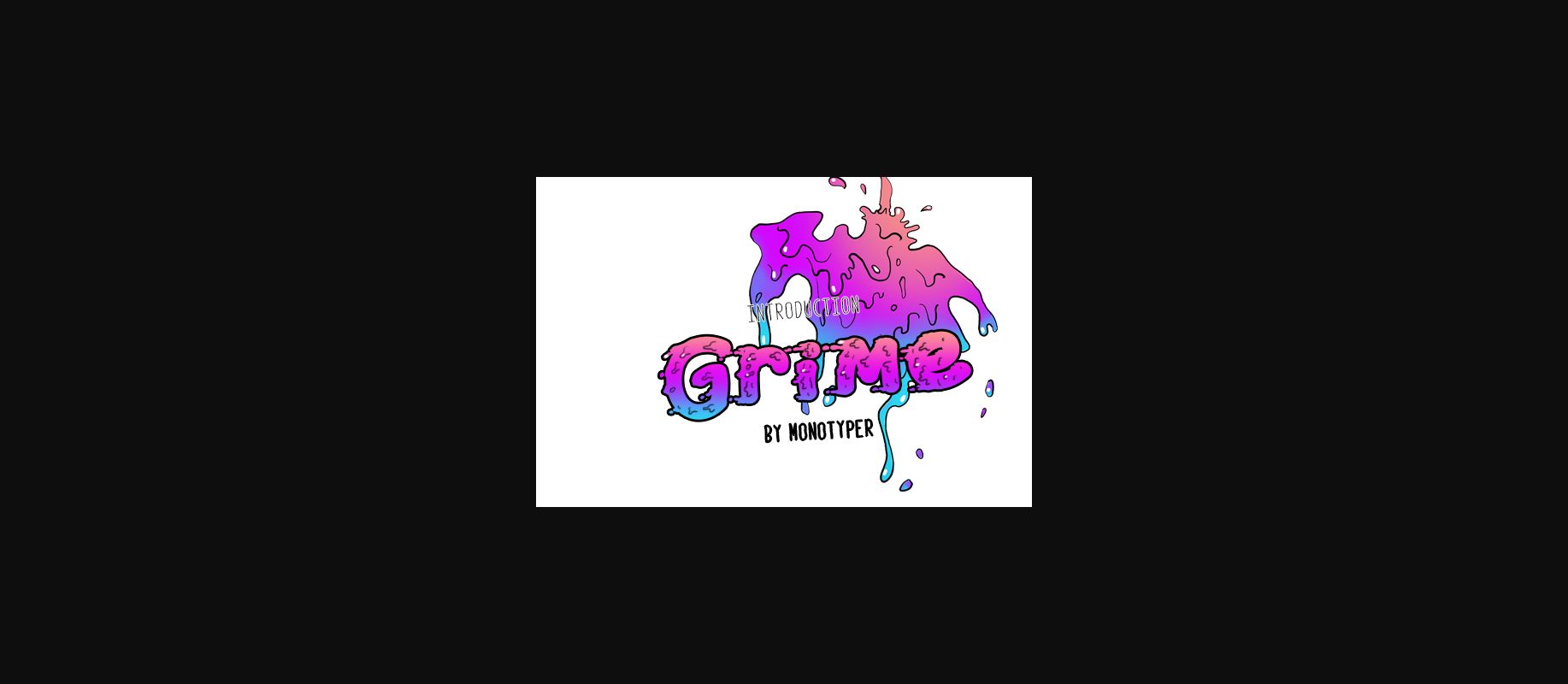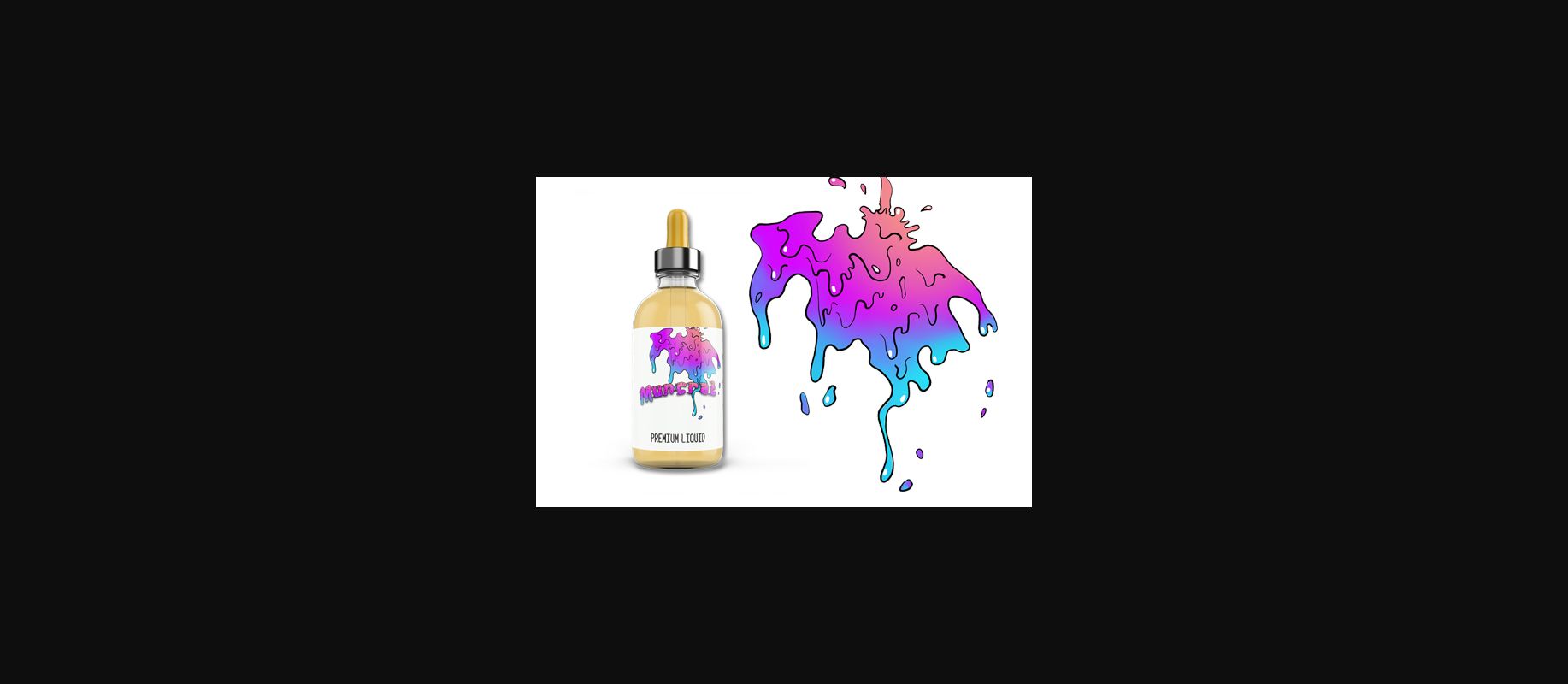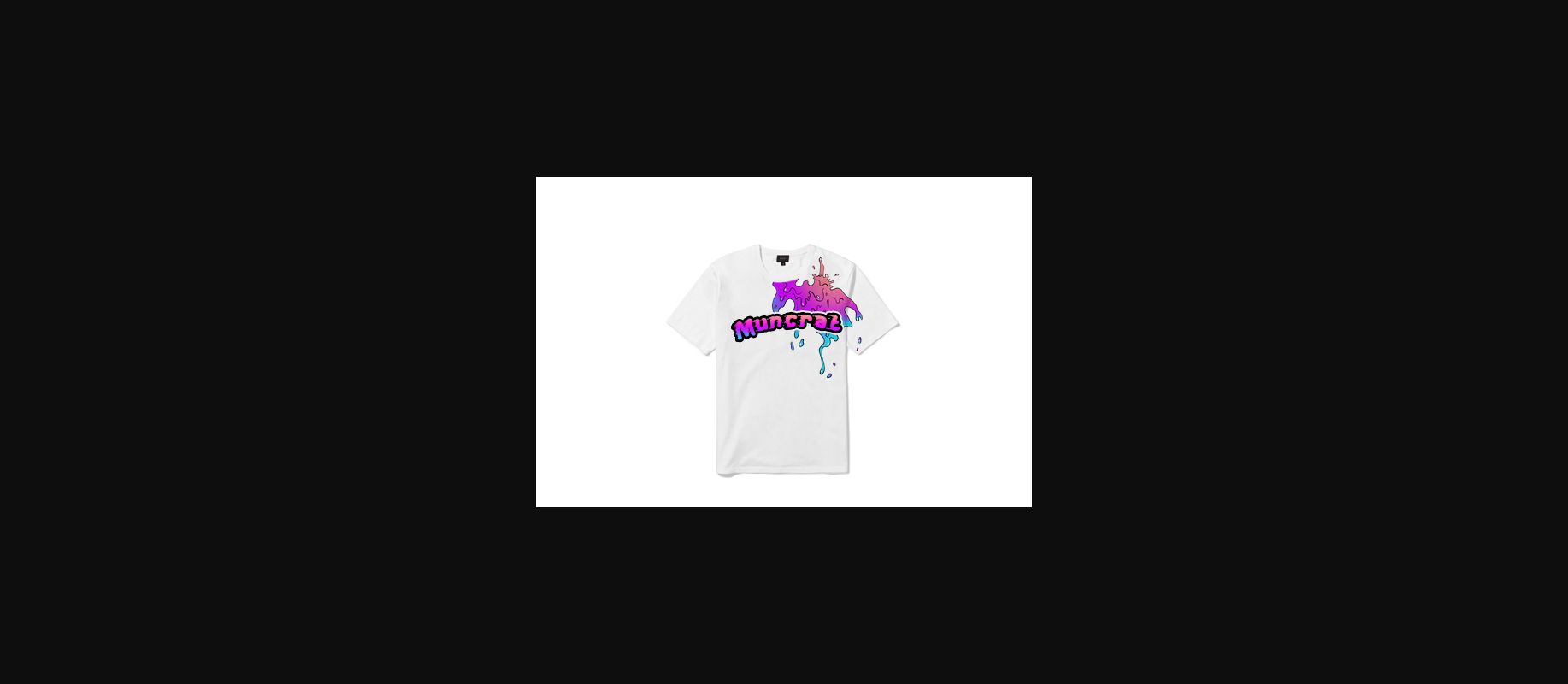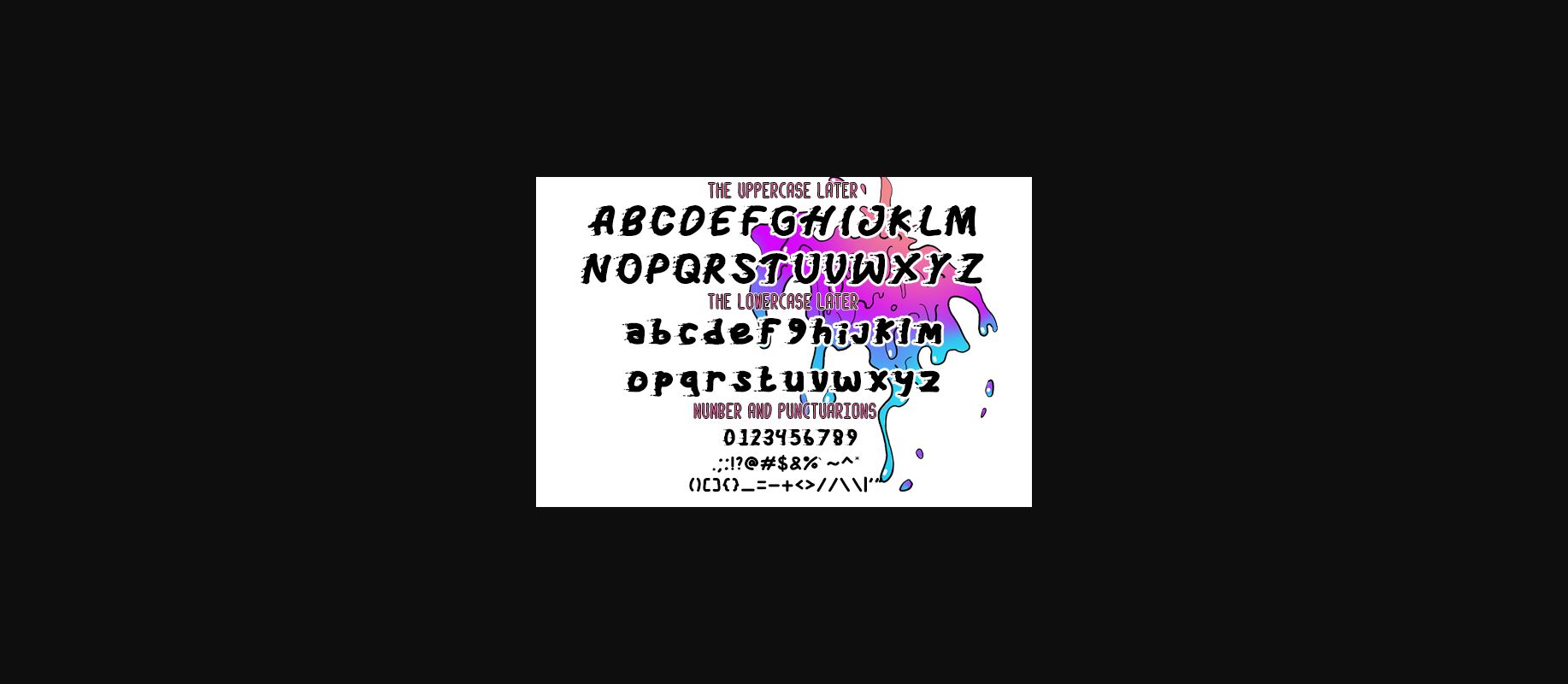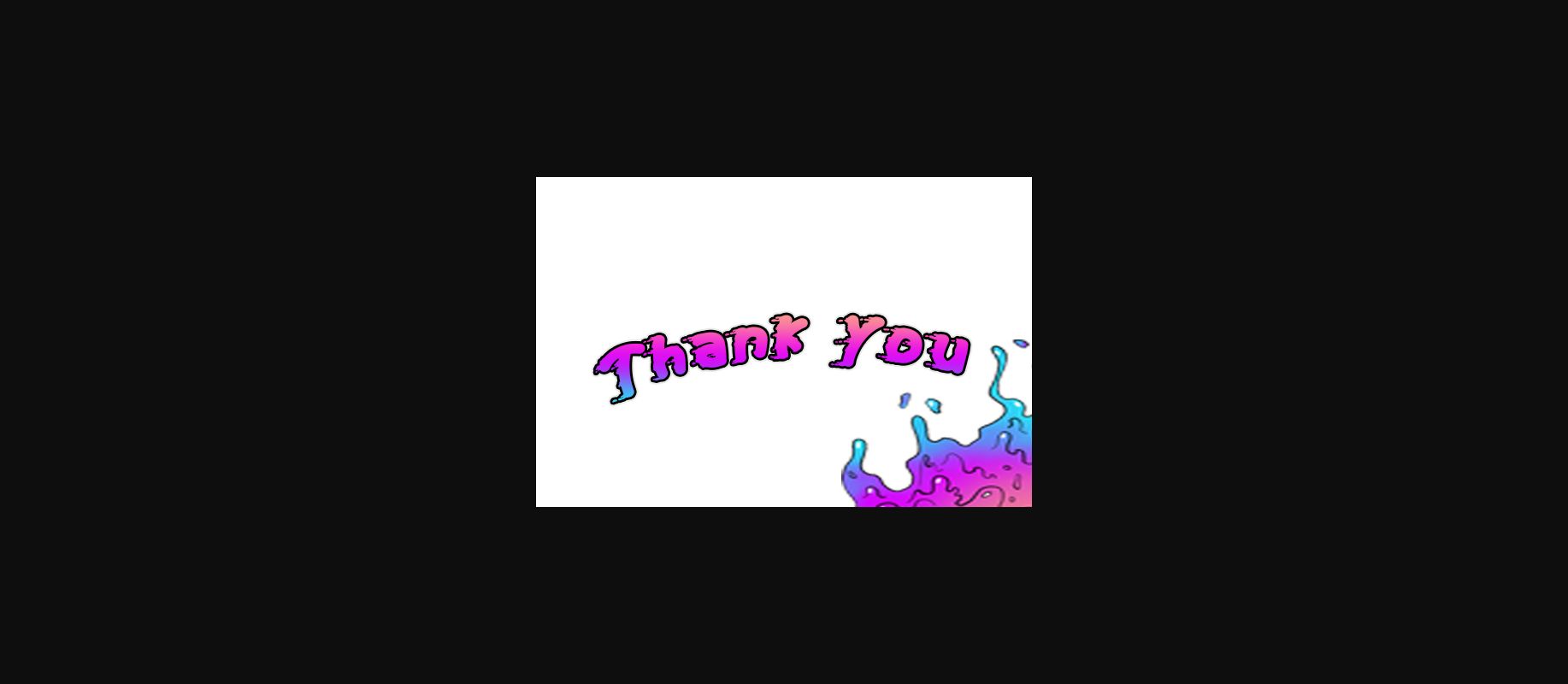
HomeDecorative FontsGrime Font Decorative Fonts Grime Font FacebookXPinterestWhatsApp 1 of 5 About Grime Font Inspired by sludge and slime, Grime is a fun decorative font that will add a unique twist to any creative project. DOWNLOAD NOW People also explored Beautiful Font Santabeel Font Rampung Font Sorren Ex Karma Loo Font Norway Font Aliffah Font Coffee Font Elisa Font 357 0 TagsGrimeGrime Font Previous articleScrap FontNext articleThunderly Script Font LEAVE A REPLY Cancel reply Comment: Please enter your comment! Name:* Please enter your name here Email:* You have entered an incorrect email address! Please enter your email address here Website: Save my name, email, and website in this browser for the next time I comment. Personal Use Free Cataleya Personal Use Free Read more about this font Elliane Personal Use Free Read more about this font Zalitta Personal Use Free Read more about this font Wintersoul Personal Use Free Read more about this font BLOG Elegant Wedding Invitation Fonts – Handwritten & Script Fonts Elegant Wedding Invitation Fonts Your wedding day is one of the most important moments of your life, and every detail matters—including your invitation design. Our... Modern Sans-Serif Fonts That Brands Love in 2025 Using Fonts in Digital Marketing: Tips to Strengthen Your Brand Identity Fonts That Capture the Spirit of New York City